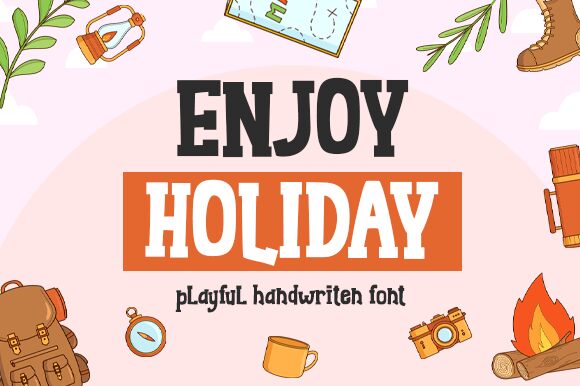
Introducing Enjoy Holiday, a playful cartoon display font designed by Risma Ramawi. This condensed font brings fun and joy to any project with its unique and whimsical letterforms. Perfect for creating eye-catching titles, logos, posters, and other designs that need a touch of silliness. Enjoy Holiday is sure to bring smiles to everyone's face!